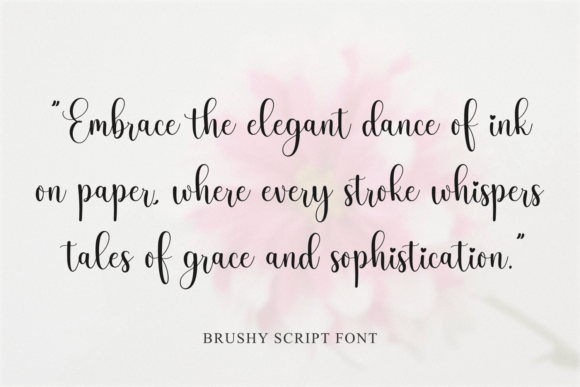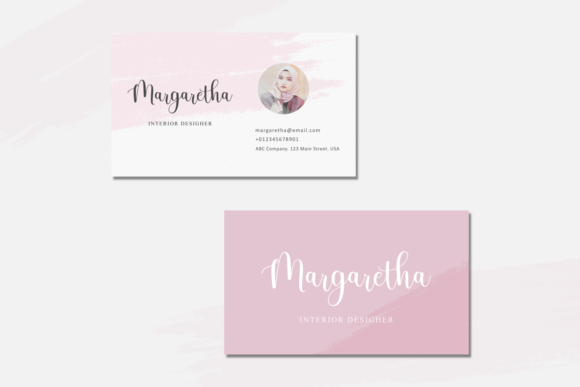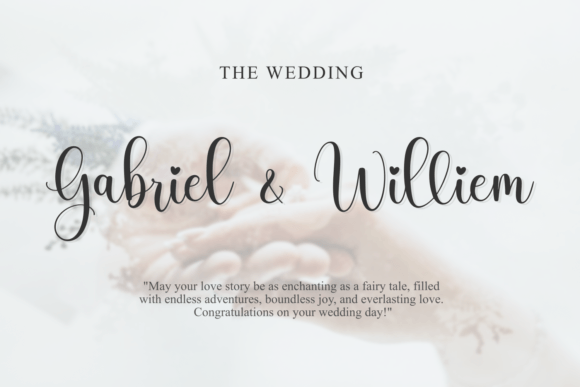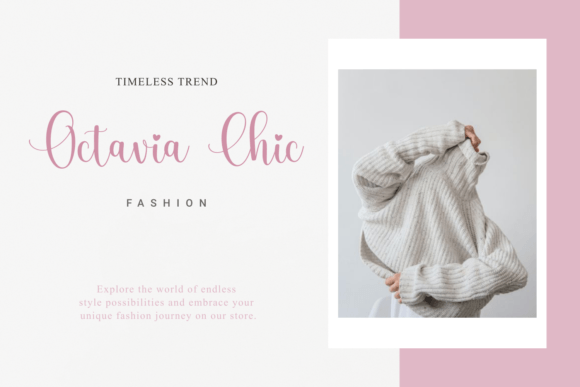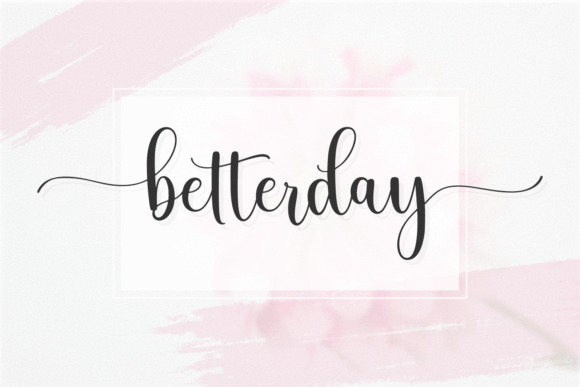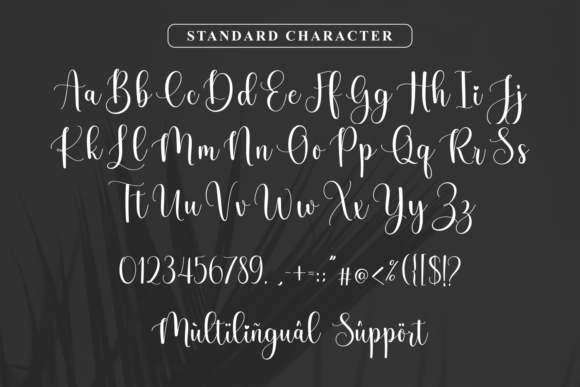
Introducing Brushy Font: Elevate Your Designs with Timeless Elegance
In the world of typography, few fonts manage to strike a balance between simplicity and sophistication as effortlessly as Brushy Font. This captivating calligraphy font is designed to bring an understated elegance to your projects, making it the perfect choice for designers and crafters looking to add a touch of refined charm to their work.
The Essence of Brushy Font
Brushy Font is more than just a collection of characters; it’s a statement of timeless beauty. Its gracefully crafted letters are designed to lend a sense of sophistication to any project, whether you’re working on invitations, branding, or creative endeavors. The font’s simplicity is its strength, allowing it to adapt seamlessly to various design contexts while maintaining its elegant appeal.
Ideal for a Variety of Projects
One of the standout features of Brushy Font is its versatility. It’s ideal for a wide range of projects, including:
- Invitations: Add a touch of elegance to your wedding invitations, birthday parties, or any other special occasion with Brushy Font.
- Branding: Elevate your brand’s visual identity with a font that exudes sophistication and refinement.
- Creative Endeavors: Whether you’re working on a logo, a poster, or any other creative project, Brushy Font can help you achieve a look that’s both timeless and beautiful.
Brushy Font is PUA (Private Use Area) encoded, which means you can access all glyphs and swashes with ease. This feature is particularly useful for designers who want to experiment with different styles and variations without having to navigate complicated font menus. With PUA encoding, you can unlock the full potential of Brushy Font and bring your creative vision to life.
Why Choose Brushy Font?
With so many fonts available, why choose Brushy Font? Here are a few reasons why designers and crafters are drawn to this captivating calligraphy font:
- Timeless Elegance: Brushy Font’s classic appeal ensures that your designs will remain stylish for years to come.
- Versatility: Whether you’re working on a digital project or a print design, Brushy Font adapts seamlessly to various contexts.
- Ease of Use: With PUA encoding, you can easily access all glyphs and swashes, making it simple to experiment with different styles.
Tips for Using Brushy Font
To get the most out of Brushy Font, here are a few tips to keep in mind:
- Experiment with Sizes: Brushy Font looks great in various sizes, so don’t be afraid to experiment with different font sizes to achieve the desired effect.
- Pair with Other Fonts: Try pairing Brushy Font with other fonts to create a unique and visually appealing design.
- Play with Swashes: With PUA encoding, you can easily access swashes and glyphs to add an extra touch of elegance to your designs.
Brushy Font is a captivating calligraphy font that effortlessly blends simplicity with sophistication. Its timeless elegance, versatility, and ease of use make it an ideal choice for designers and crafters looking to elevate their designs. Whether you’re working on invitations, branding, or creative endeavors, Brushy Font is sure to add a touch of refined charm to your every word.